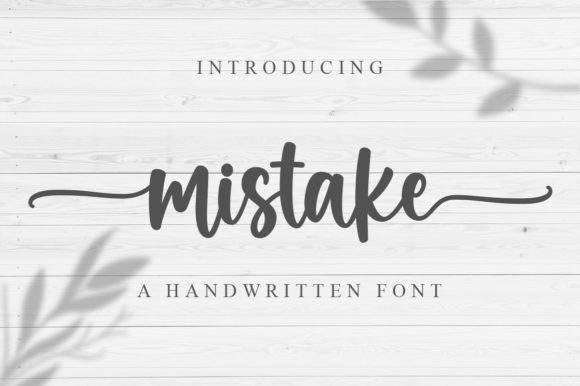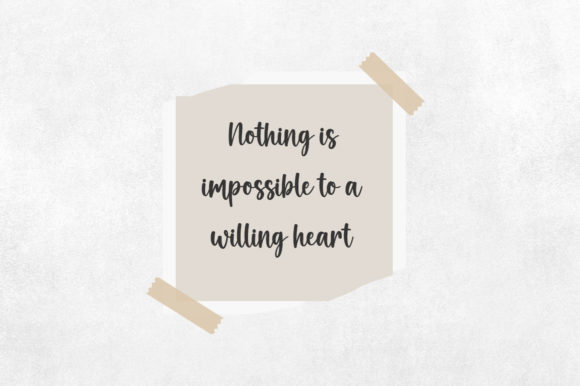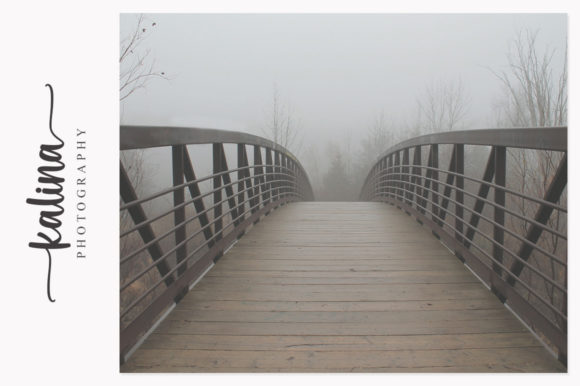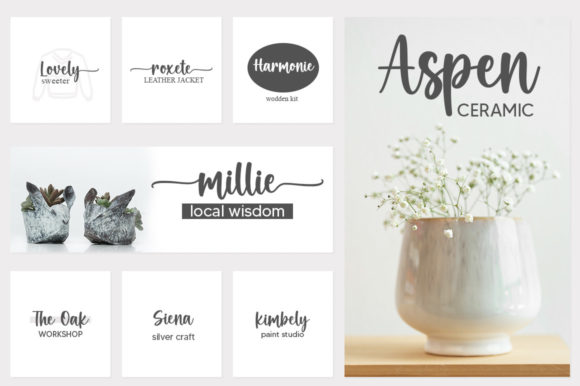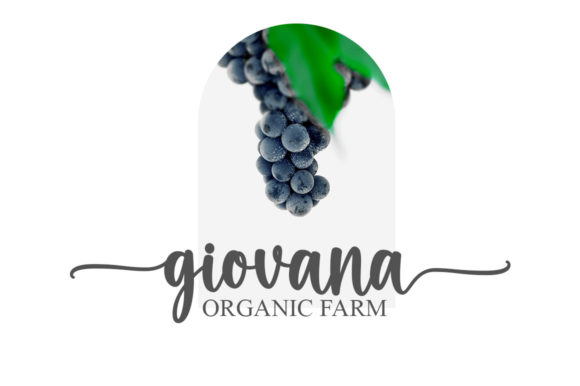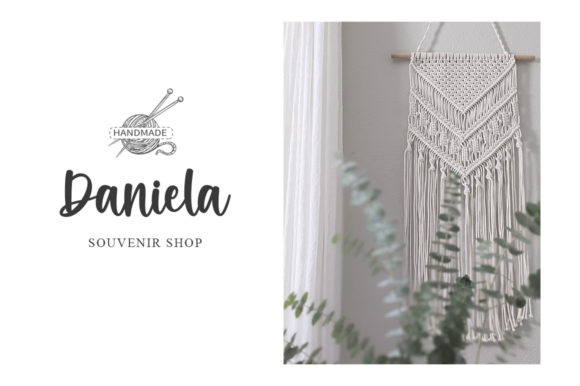
About Mistake Font
MistakeĀ is a delicate, refined script font that emanates sophistication and elegance. Its stylish alternates and ligatures make this font the perfect match for any project.